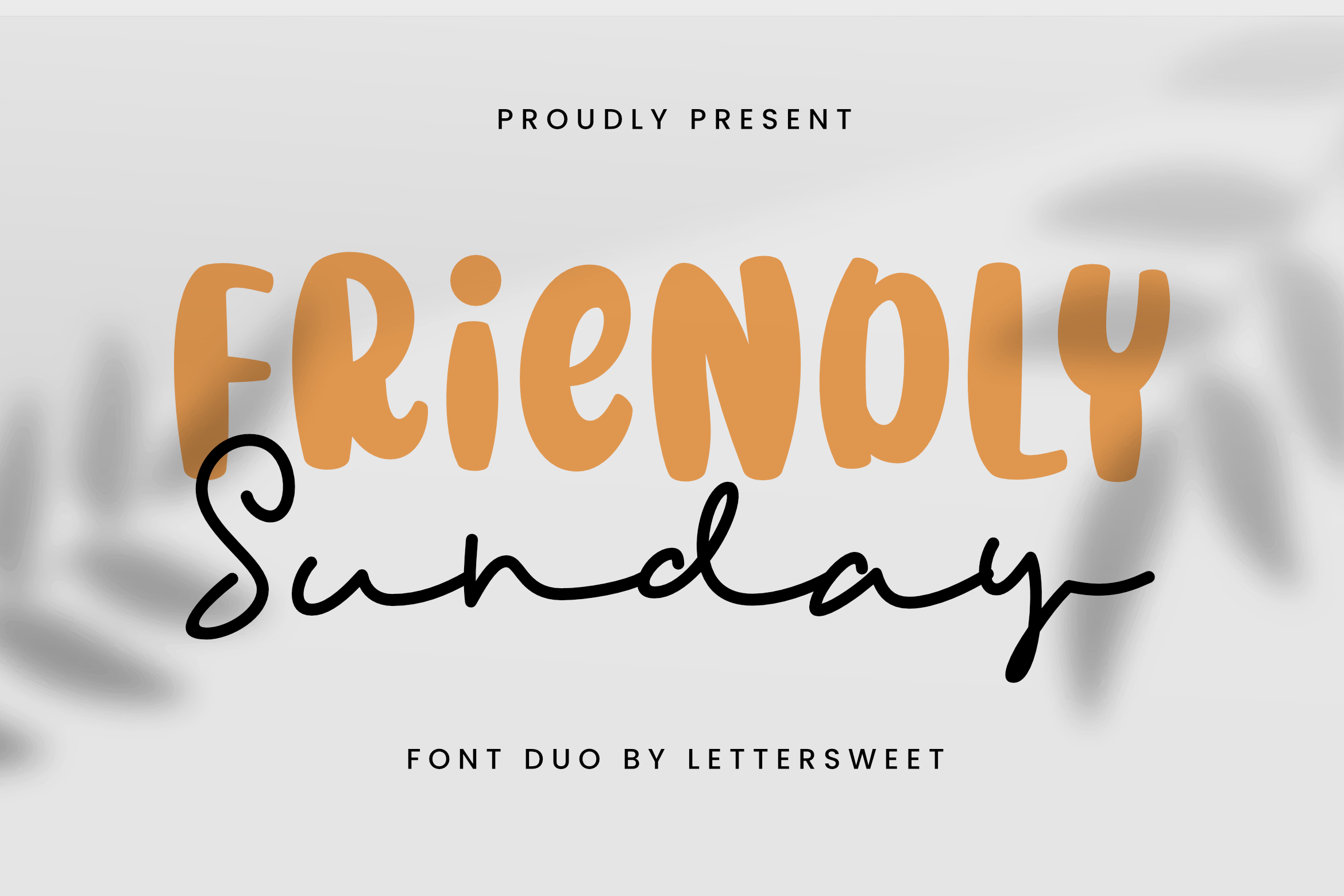
Friendly Sunday Script- Font Unique Duo Font
About Friendly Sunday Script- Font Unique Duo
Friendly Sunday is a delicate, elegant, and unique font duo (script and sans serif). It has beautiful and well-balanced characters and as a result, it matches a wide pool of designs. Have fun with this beautiful font and explore its endless variations.